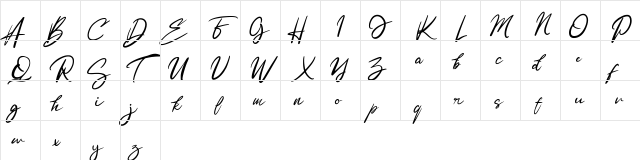
Osage FREE Regular
Design Context for Osage FREE Typeface
Osage FREE is a composed and adaptable typeface that performs quietly and consistently across a wide range of design contexts.
Pro Tip: Pair Osage FREE with a font of contrasting weight or personality to build a more expressive typographic hierarchy.